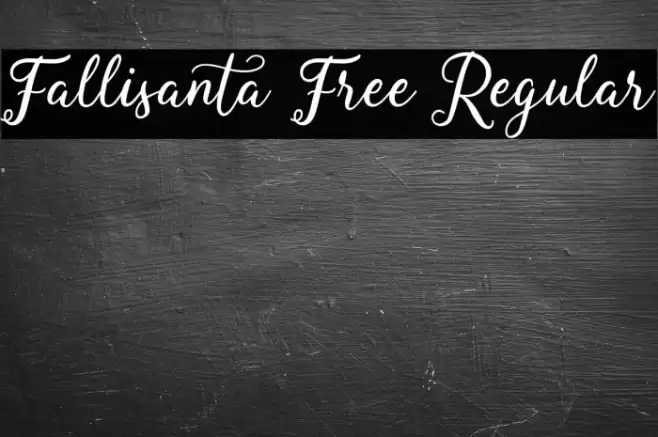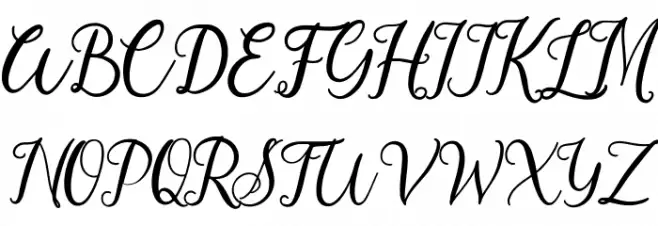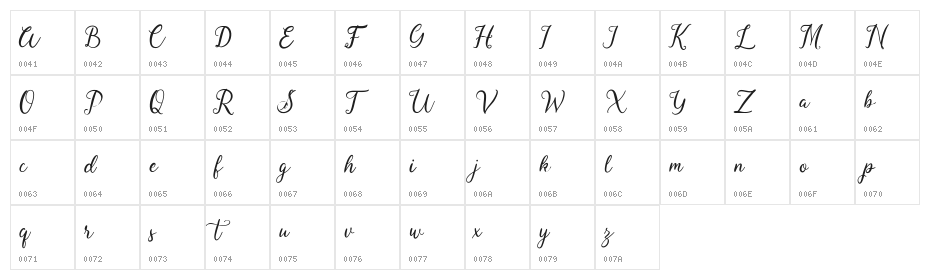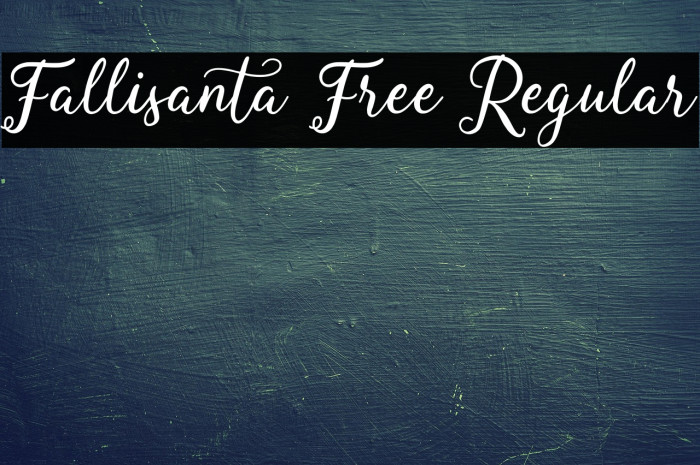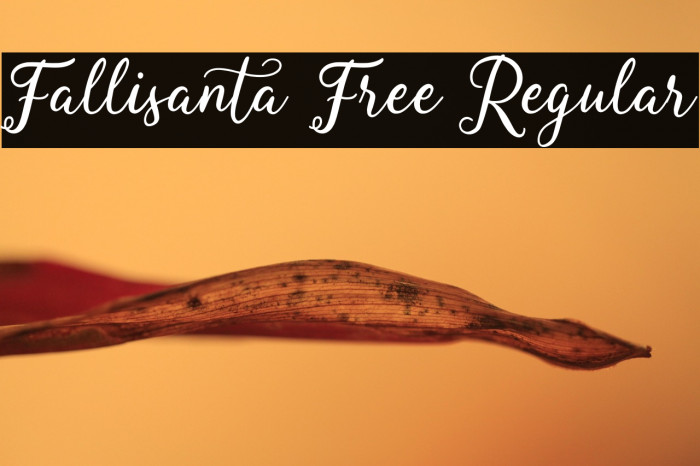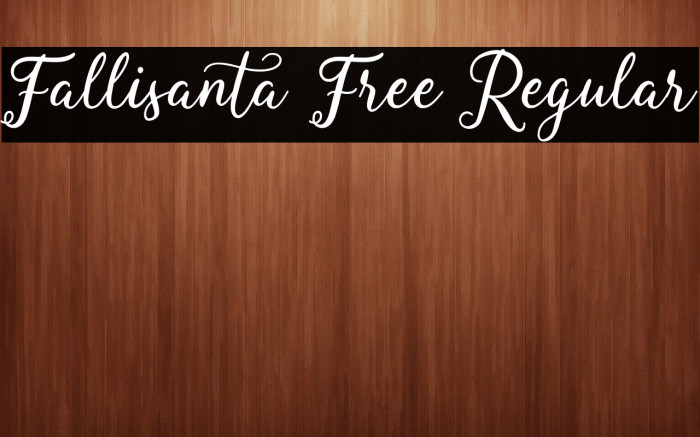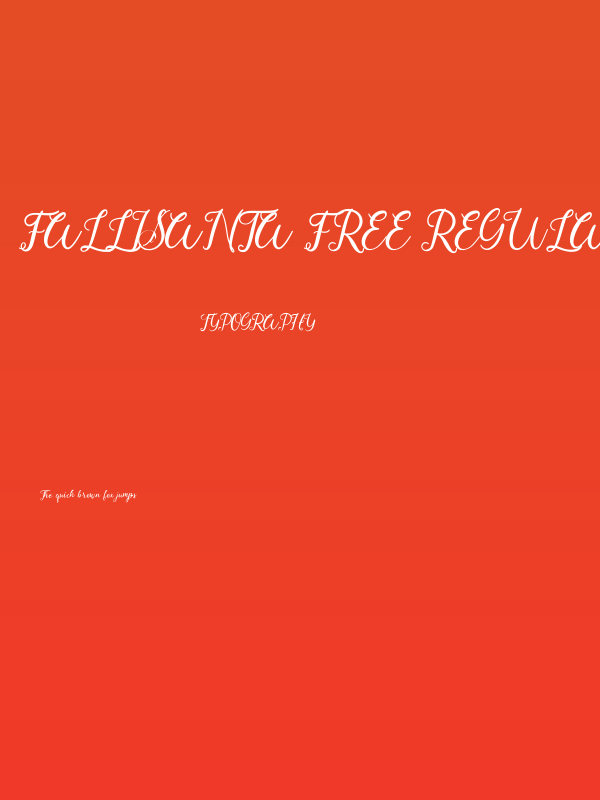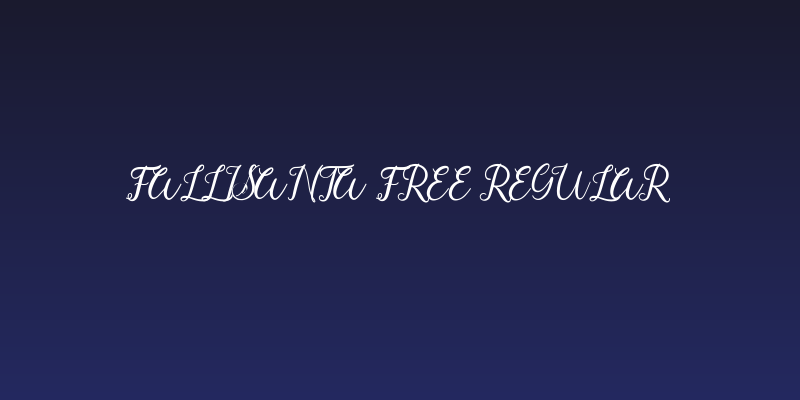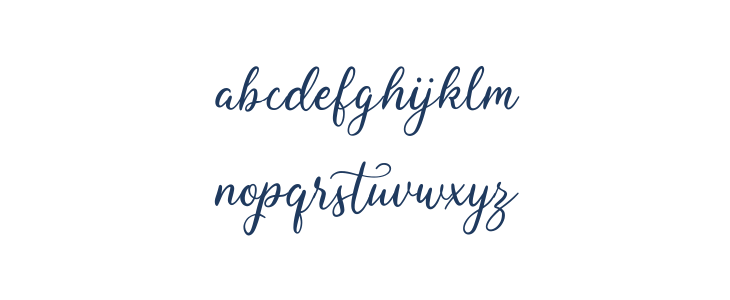
Fallisanta Free Regular Font
Fallisanta Free Regular Description
This elegant script font features flowing, cursive letterforms with a classic and sophisticated appearance. The uppercase letters are ornate with intricate loops and swashes, giving a sense of grandeur and formality. The lowercase letters maintain a smooth and connected style, enhancing readability while retaining a decorative flair. The font's overall design is balanced, with moderate contrast between thick and thin strokes, adding to its graceful aesthetic. It is well-suited for projects that require a touch of elegance and refinement.
An elegant script font with flowing, cursive letterforms and intricate swashes from Regular fonts.
- Proposed Projects: Ideal for wedding invitations, elegant branding, greeting cards, and formal event materials.
- Overall Style: Classic
- Use Case: Logos, Invitations, Decorative text